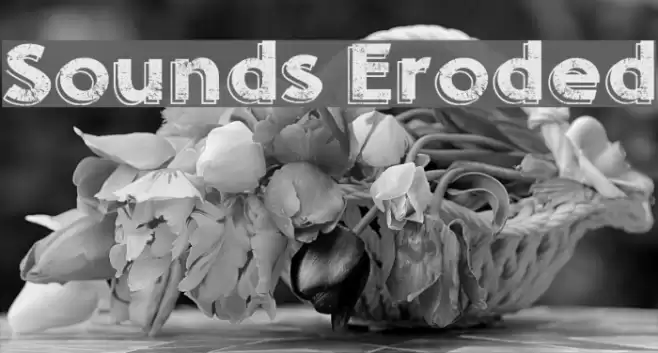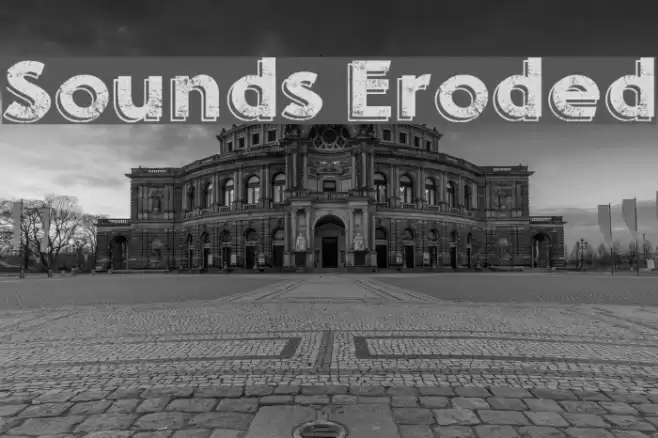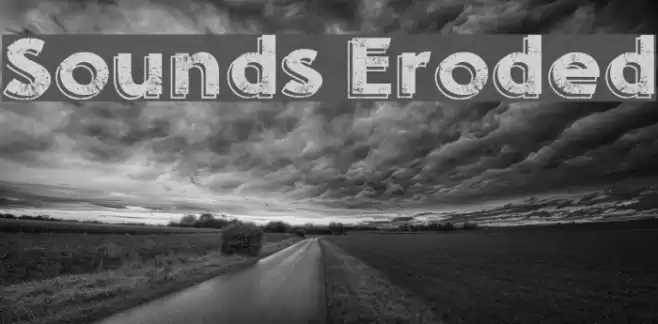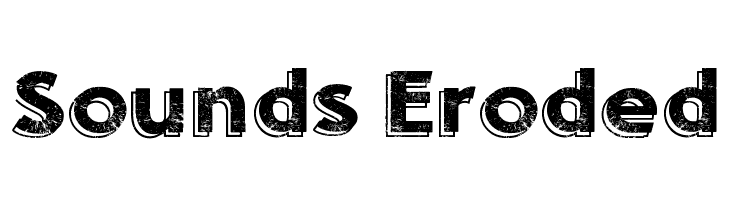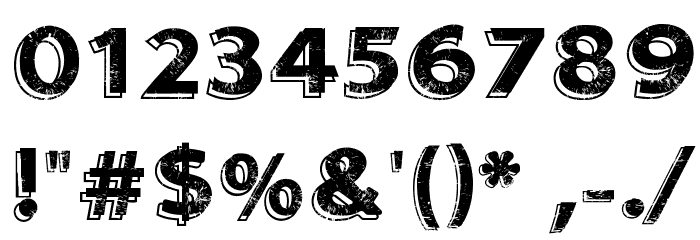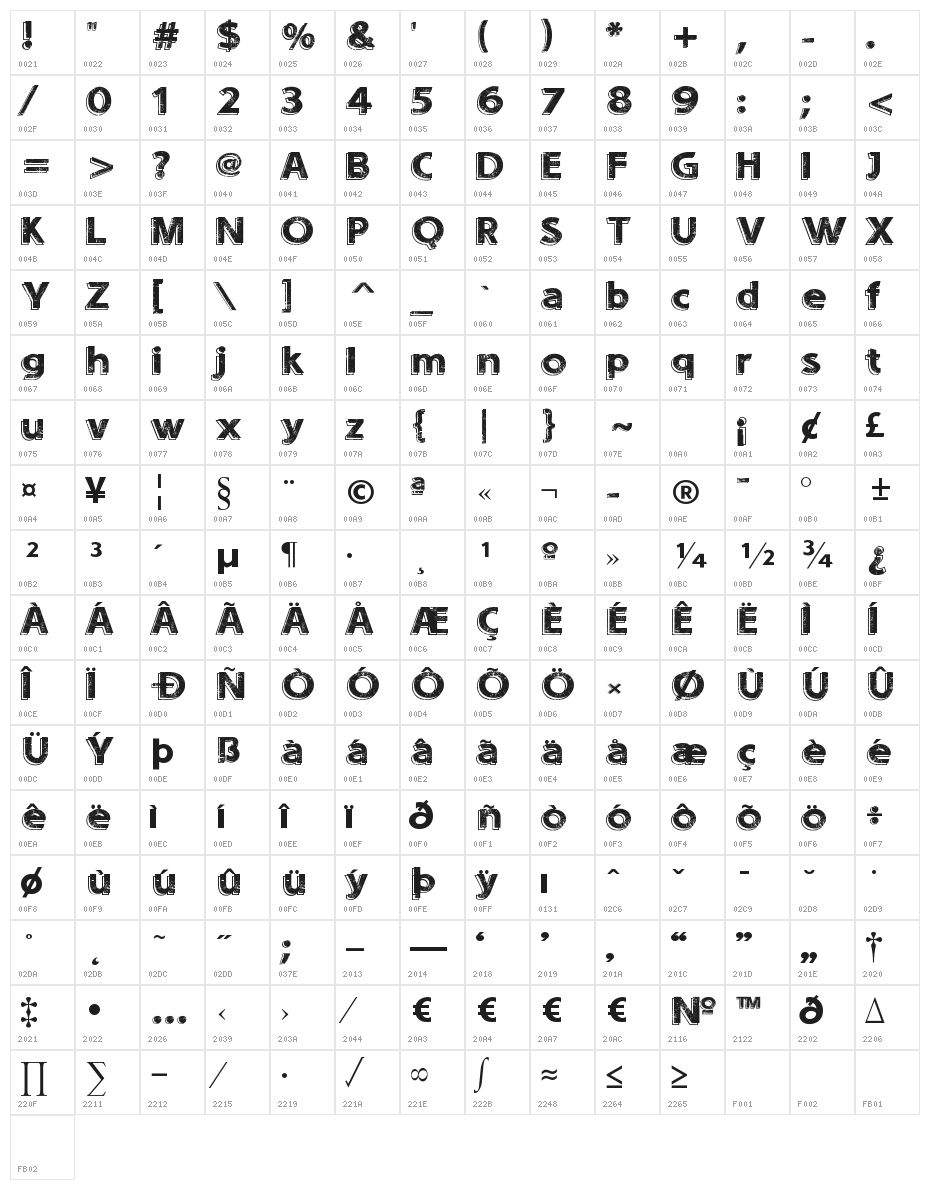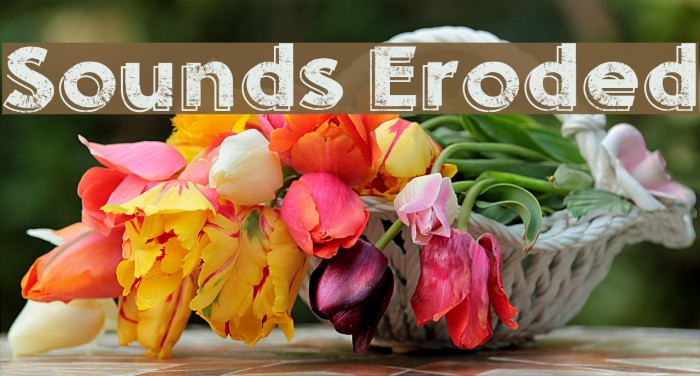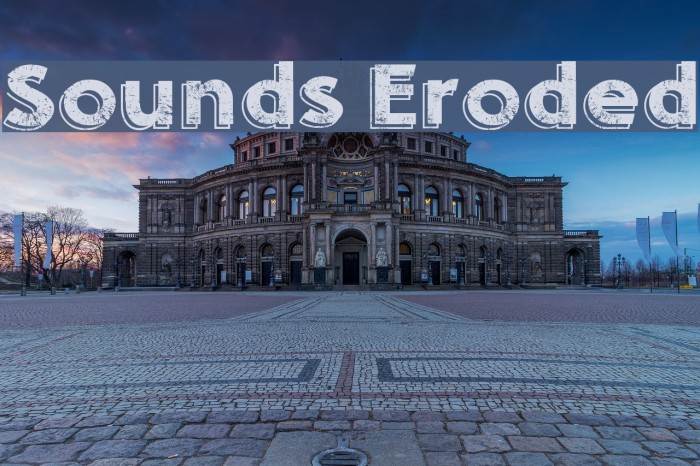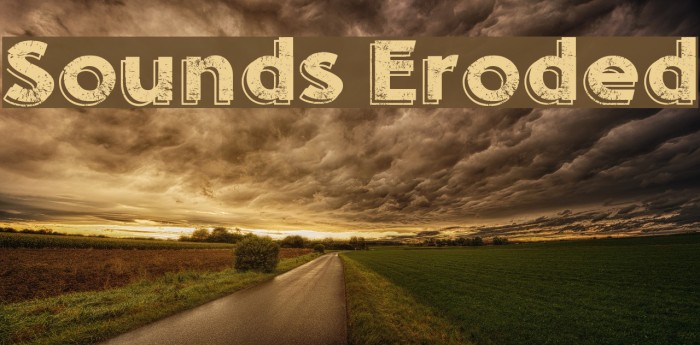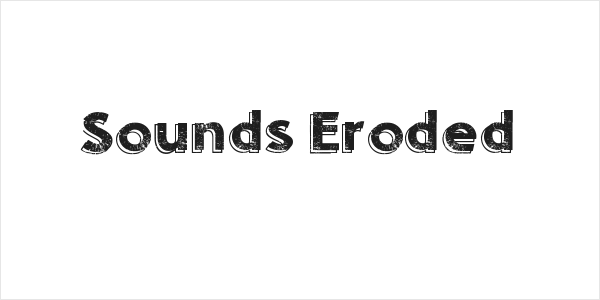
Sounds Eroded Font
Sounds Eroded Description
This font features a distressed, eroded texture that gives it a rugged and worn appearance. The bold, sans-serif letters are designed with a rough, textured finish, creating a sense of age and character. The uppercase and lowercase letters maintain a consistent style, with slightly rounded edges that soften the overall look. Numbers and special characters are included, each carrying the same eroded effect, making them suitable for designs that require a vintage or grunge aesthetic. The font's unique texture makes it stand out, adding a layer of depth and interest to any project.
A bold, distressed sans-serif font with an eroded, vintage look from Distorted Eroded fonts.
- Proposed Projects: Ideal for posters, album covers, branding, and any project needing a vintage or grunge aesthetic.
- Overall Style: Vintage